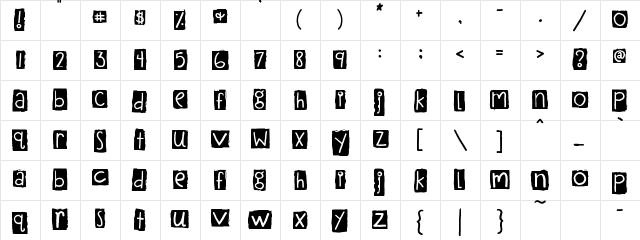
FB Pink Font Preview
FB Pink FB Pink
FB Pink Font Details
| Style | FB Pink |
| Foundry | Font Boutique |
Design Context for FB Pink Typeface
FB Pink is a composed and adaptable typeface that performs quietly and consistently across a wide range of design contexts.